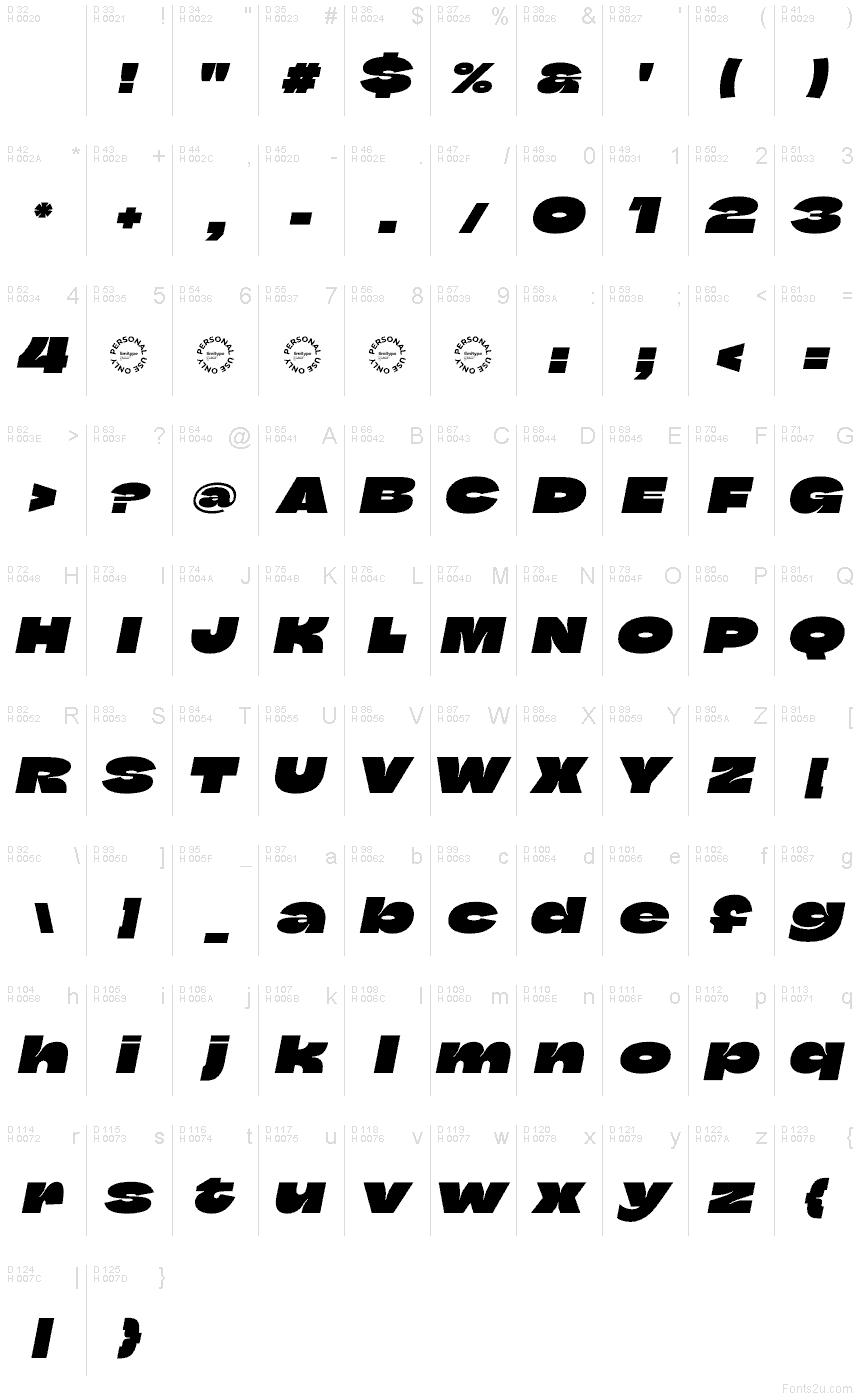
Nority Slanted Demo
Nority Slanted font by Limitype is a free slanted sans display typeface that moves like it’s already in the fast lane. Part of the Nority family, its heavy wedges, tight counters, and hard-angled cuts create a thrust-forward silhouette that reads as speed and impact. The letters feel dense and glossy, with crisp edges that punch through noisy backgrounds.
Using Nority Slanted, headlines snap into place and carry momentum—great for sports branding, racing posters, gaming logos, tech event flyers, bold social banners, and apparel prints. The rhythm stays compact, so you can stack lines without losing force. For balance, pair this free font with a neutral grotesk for small text, and add a touch of tracking at jumbo sizes.